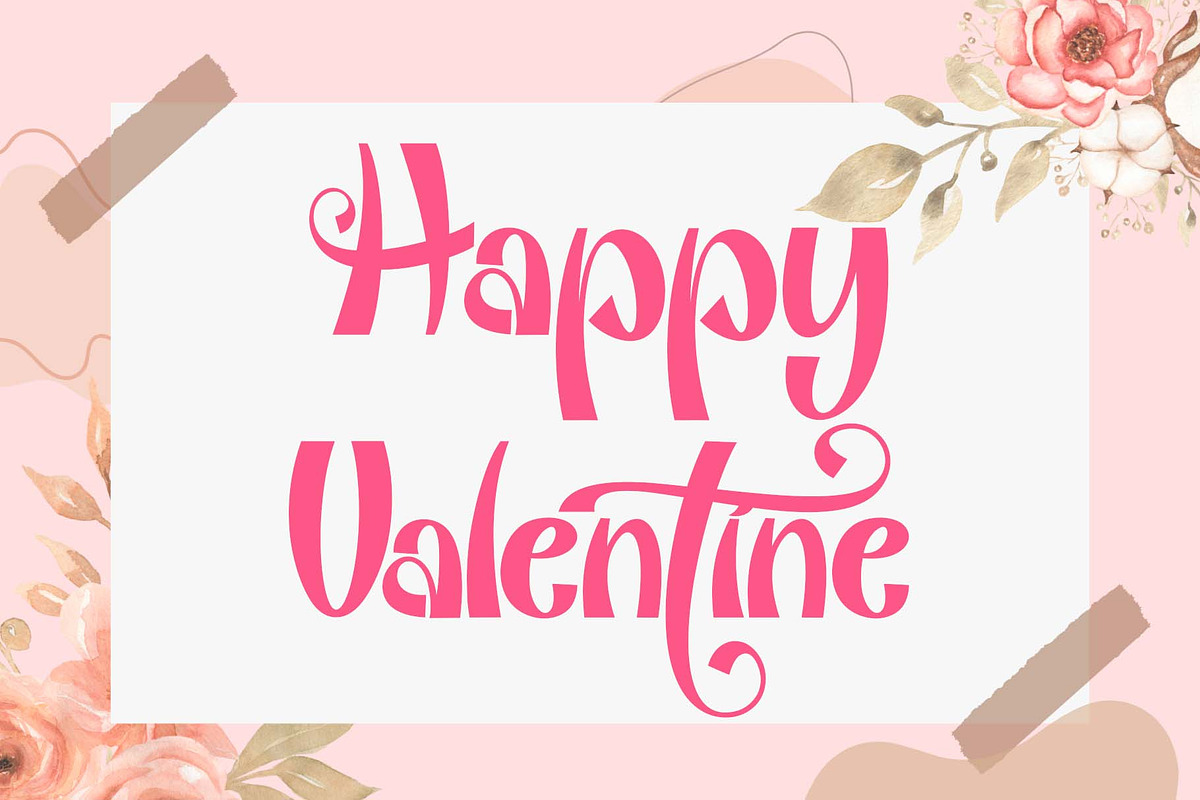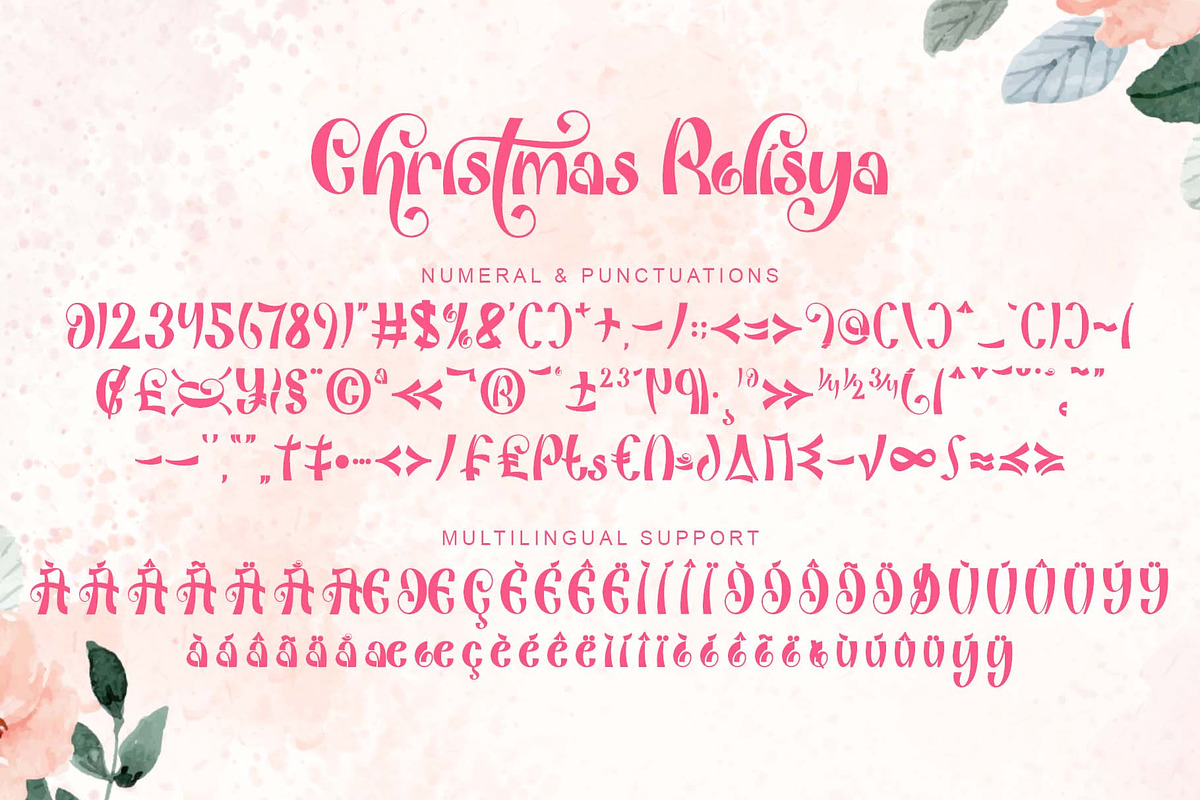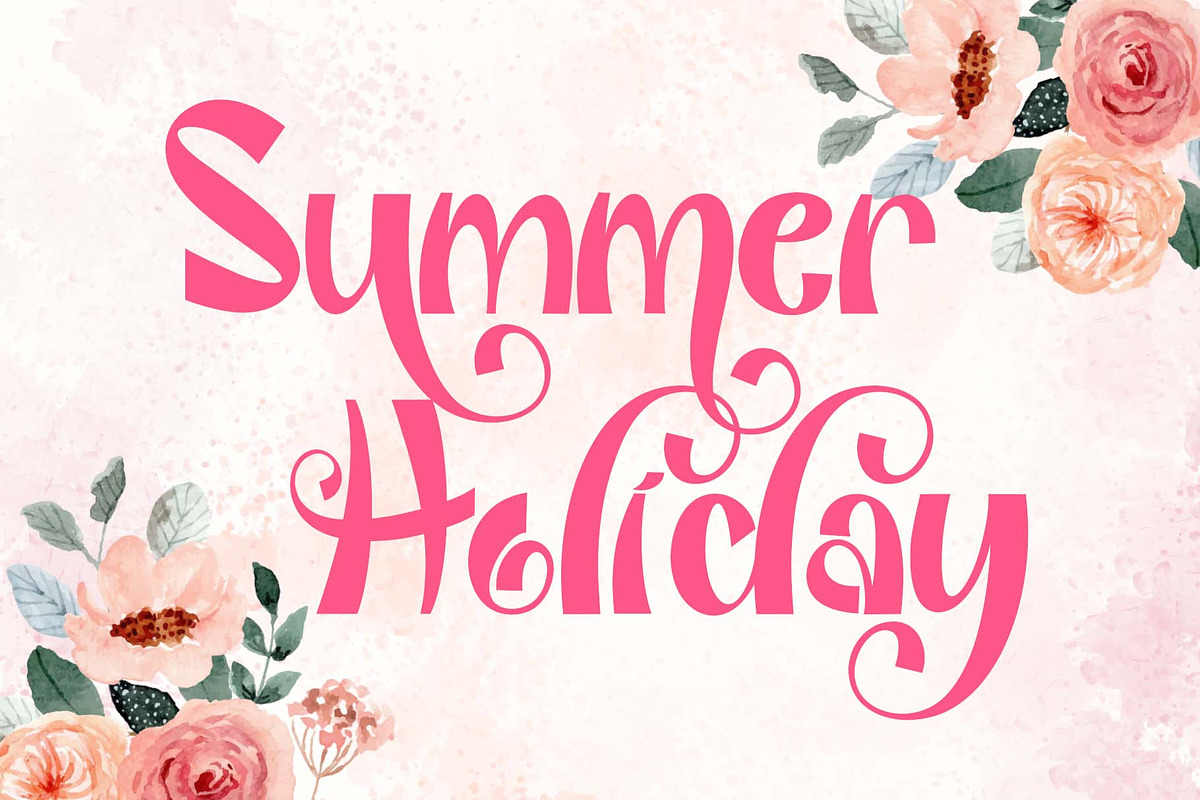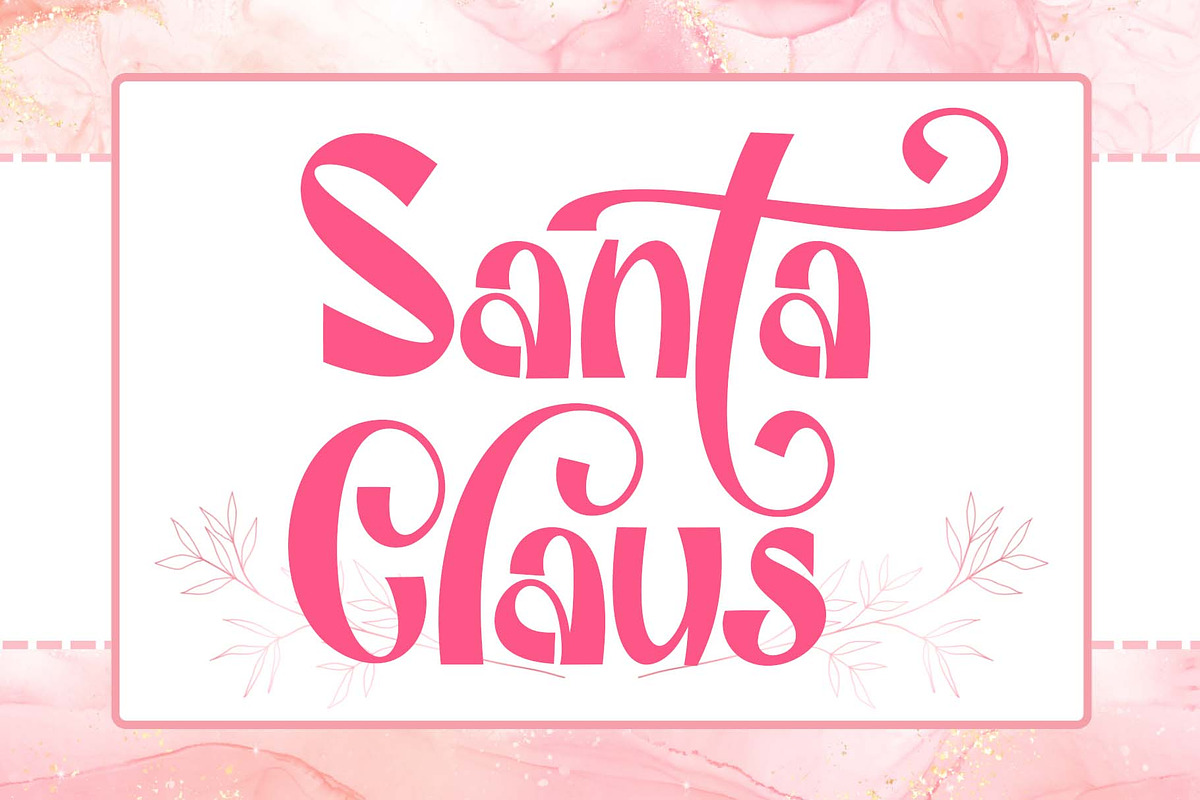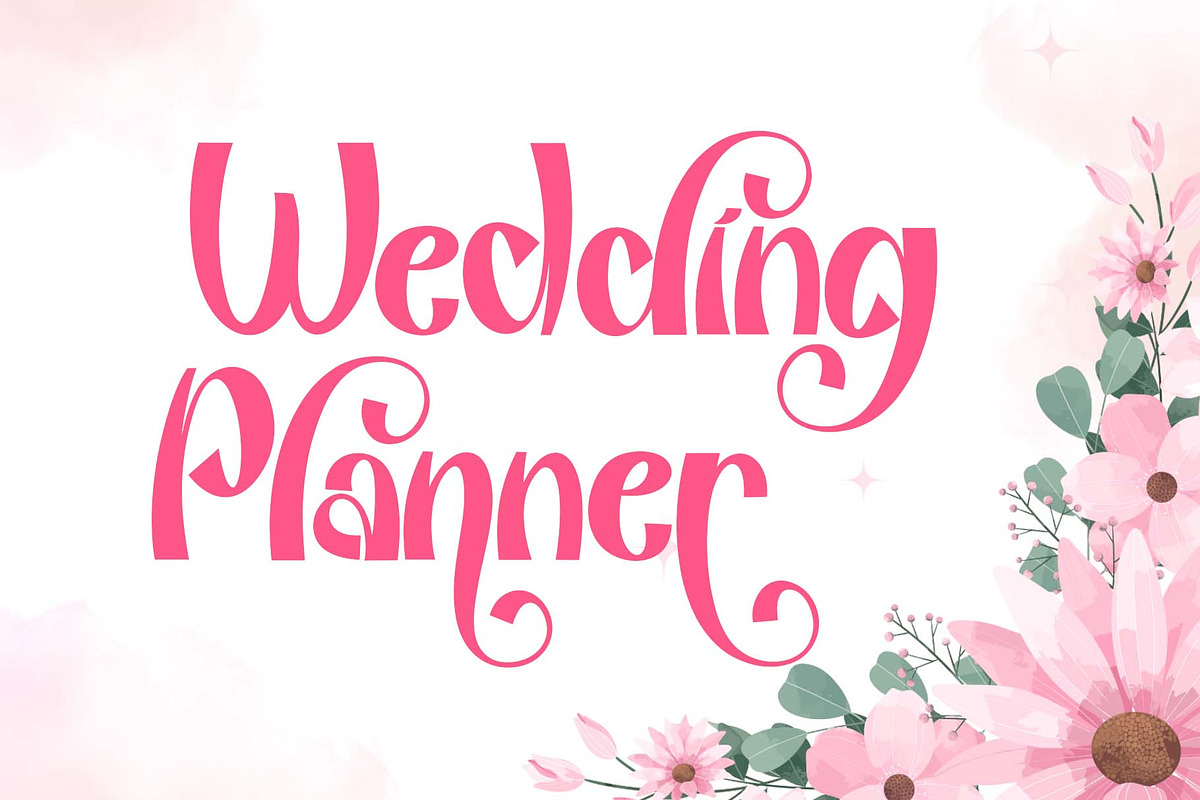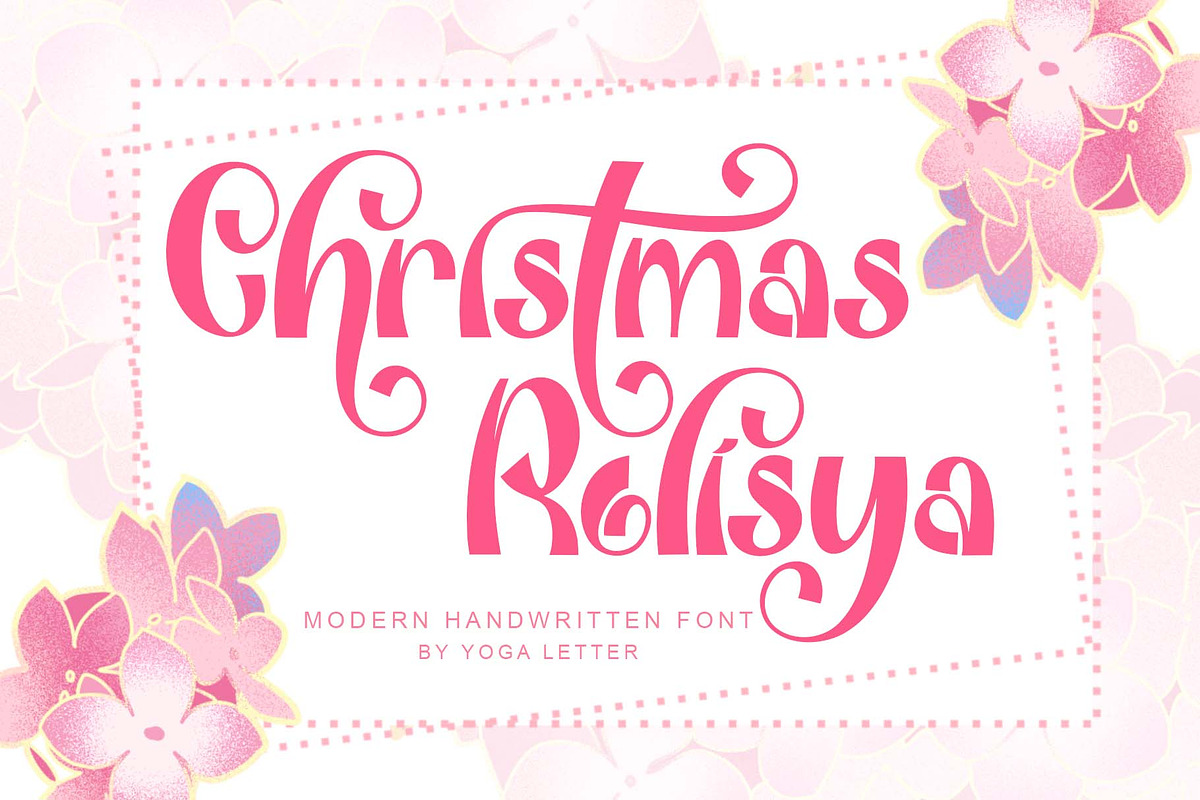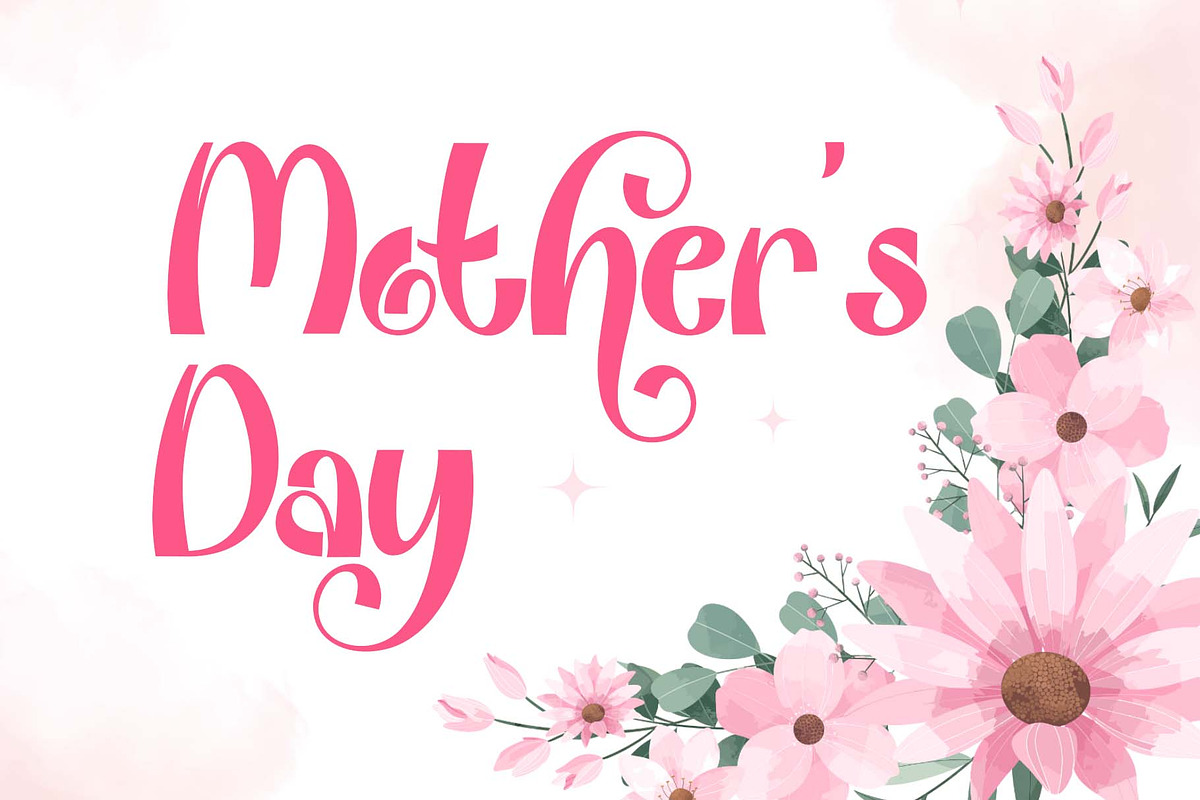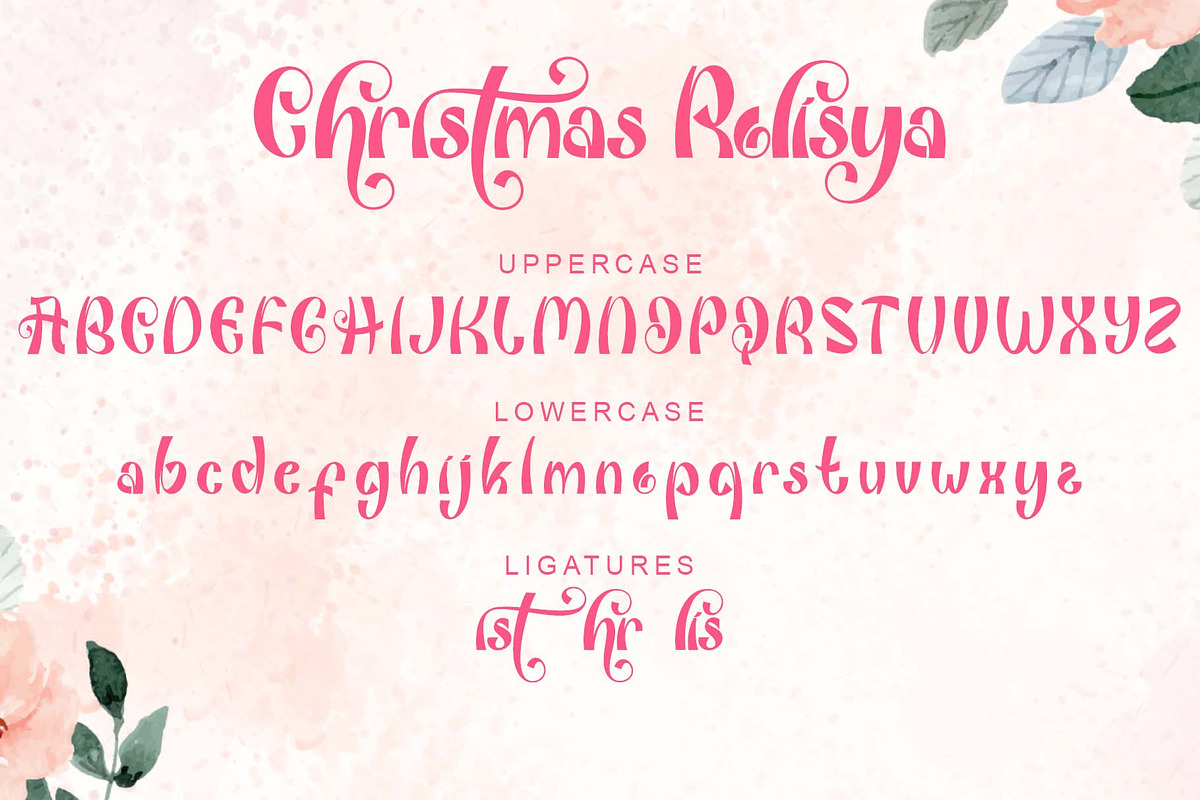
Christmas Rolisya
"Christmas Rolisya" is an elegant and beautiful handwritten font. This font is equipped with ligatures, uppercase, lowercase, numerals, punctuations and multilingual support. Very suitable for Christmas, wedding, birthday, mother's day, father's day, invitations and others.